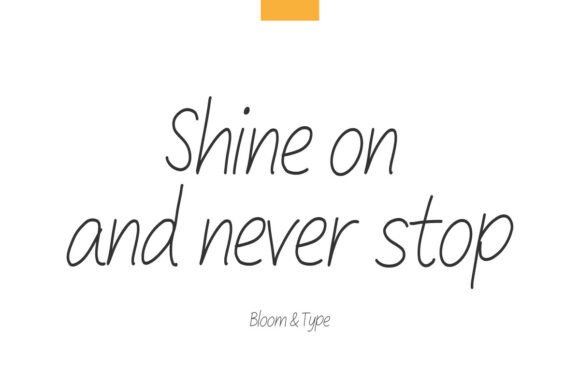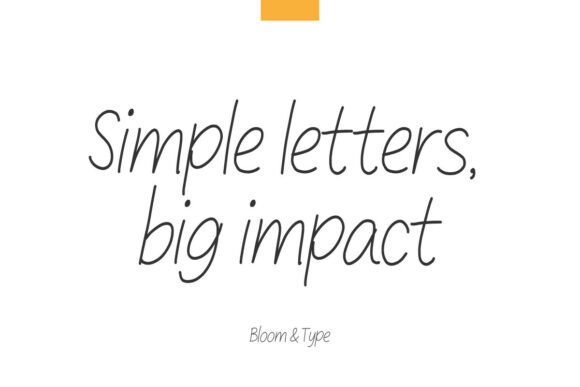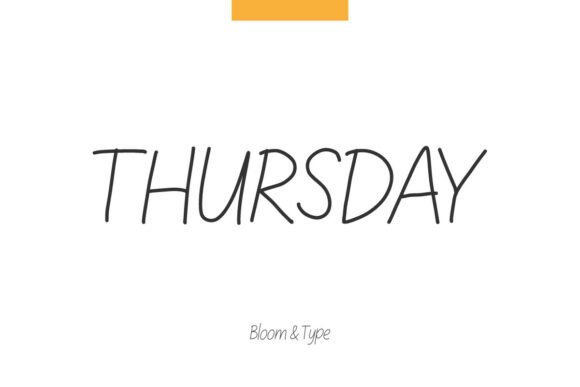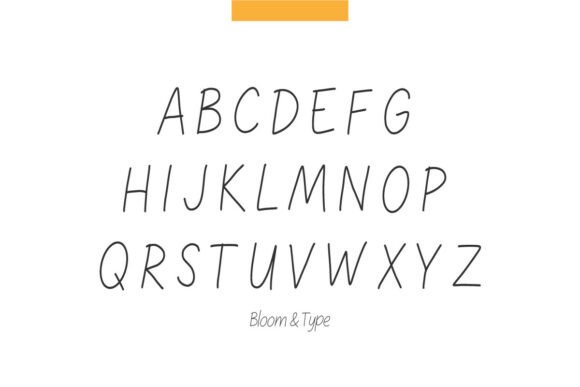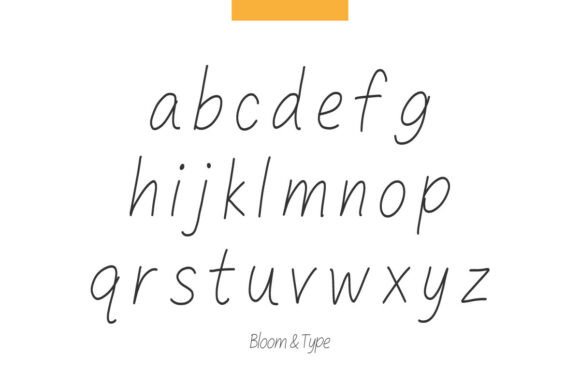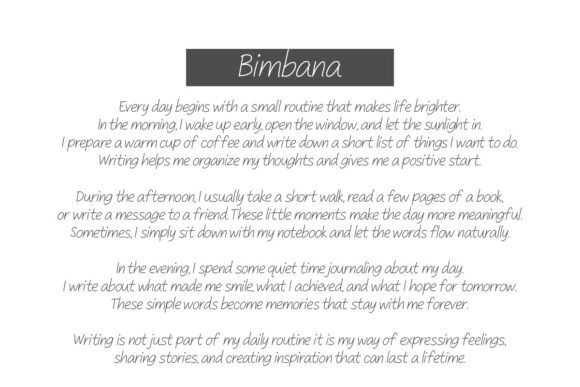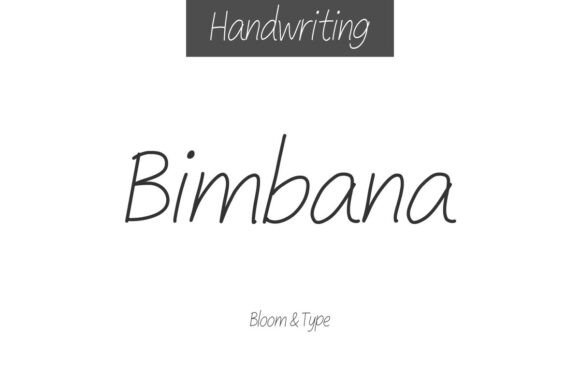
The Bimbana Font: A Charming Handwritten Style to Elevate Your Designs
I’ll never forget the time I was working on a branding project for a small bakery, and I just couldn’t find the right font to capture their warm and cozy vibe. The client wanted something that felt personal, friendly, and inviting – a font that would make their customers feel like they were walking into a warm hug. That’s when I stumbled upon the Bimbana font, and it was love at first sight! 💕
With its smooth curves, natural strokes, and casual handwriting style, Bimbana instantly brought to life the feeling I was trying to convey. It was as if the font was written just for the bakery – it had personality, character, and a unique handcrafted feel that set it apart from more generic fonts. In this article, I’ll share with you why I’m obsessed with Bimbana, its features, and how you can use it to elevate your designs.
An Honest Review of Bimbana Font
What I Love About Bimbana ✨
• ✅ Warm and inviting feel: Bimbana’s smooth curves and natural strokes give it a cozy, friendly vibe that’s perfect for branding, social media, and marketing materials.
• ✅ Easily readable: The font’s casual handwriting style is easy on the eyes, making it perfect for both digital and print designs.
• ✅ Versatile: Bimbana works beautifully for logos, branding, social media posts, packaging, invitations, and posters.
• ✅ Modern and stylish: Despite its handcrafted feel, Bimbana has a modern touch that keeps it looking fresh and current.
While Bimbana is an amazing font, there are a few things to keep in mind:
• 🤔 Limited use in very formal contexts: Bimbana’s casual style might not be the best fit for very formal projects, such as academic papers or corporate reports.
• 🤔 May not work well in small sizes: As with many handwritten fonts, Bimbana might lose some of its charm when used in very small sizes.
3. Experiment with OpenType features like ligatures and stylistic alternates to add more personality to your text.
3. Take advantage of glyphs and stylistic alternates to customize your text and add a unique touch.
The Story Behind Bimbana Font
While the origins of Bimbana might be shrouded in mystery, it’s easy to imagine that it was created by a designer who wanted to capture the warmth and personality of handwritten text. Perhaps they were inspired by the flowing scripts of vintage posters or the casual notes passed between friends. Whatever the inspiration, Bimbana is a font that feels like a warm hug – and that’s something we can all get behind!
Q: What type of projects is Bimbana best suited for?
Bimbana is perfect for branding, social media content, invitations, greeting cards, posters, flyers, and any project that needs a personal, handcrafted touch.
Q: Does Bimbana support OpenType features?
Yes, Bimbana supports OpenType features like ligatures and stylistic alternates, which can add more personality and variety to your text.